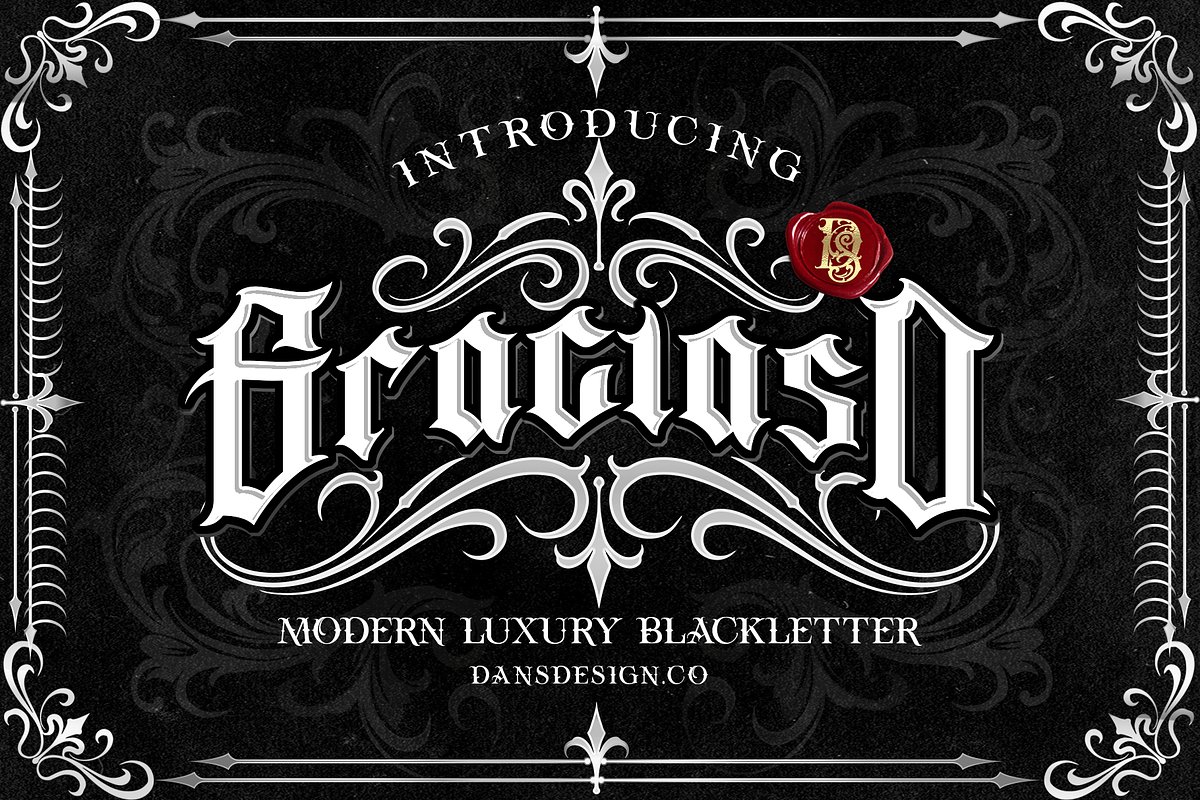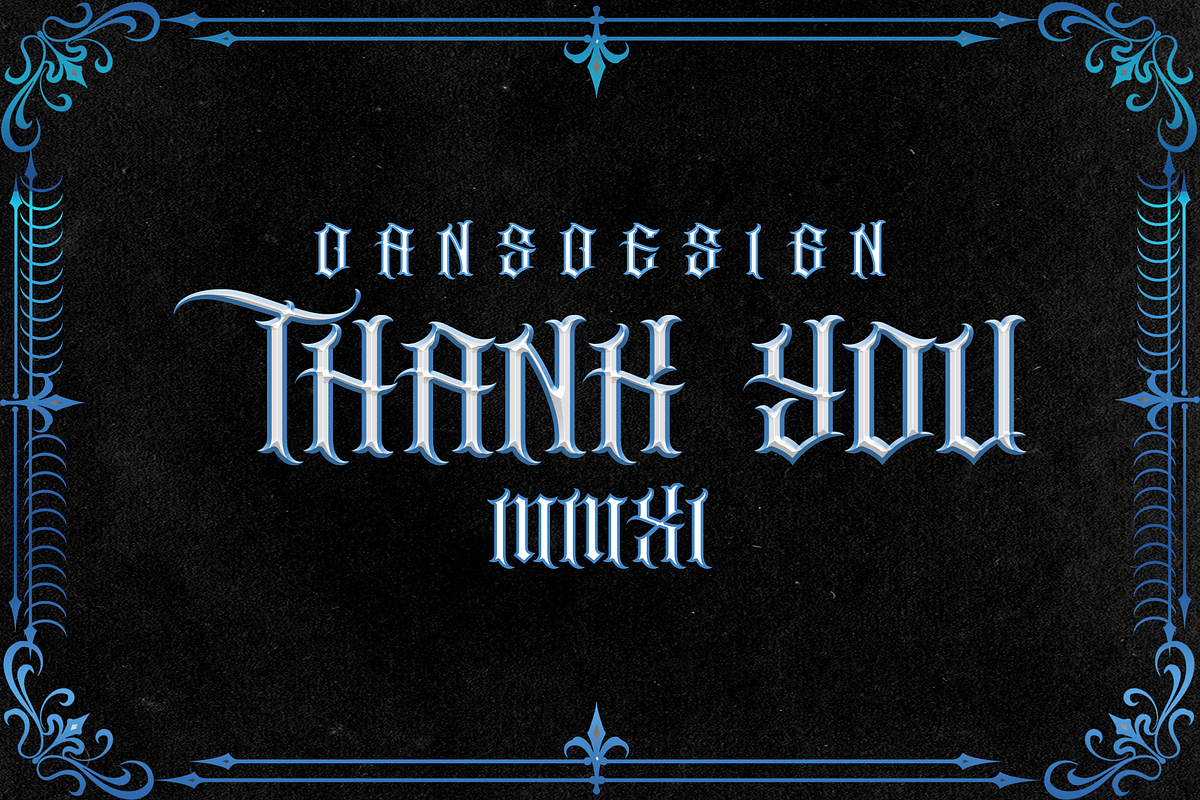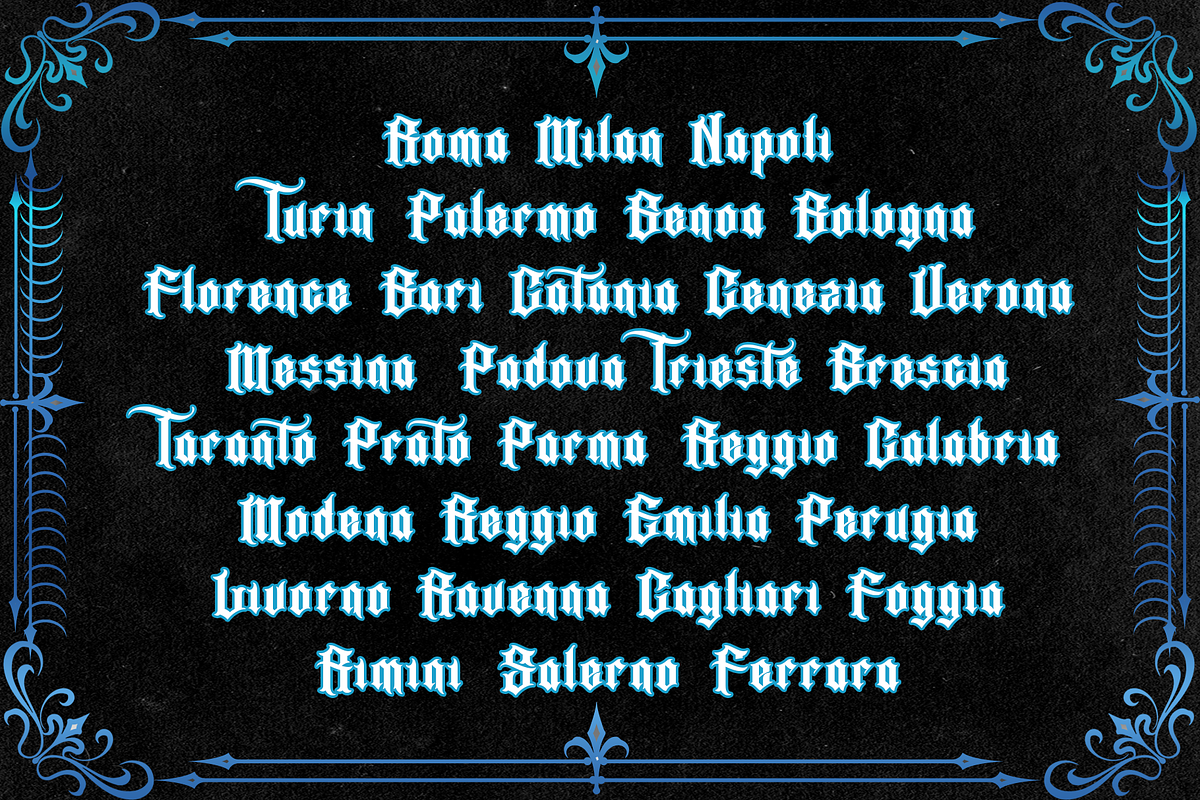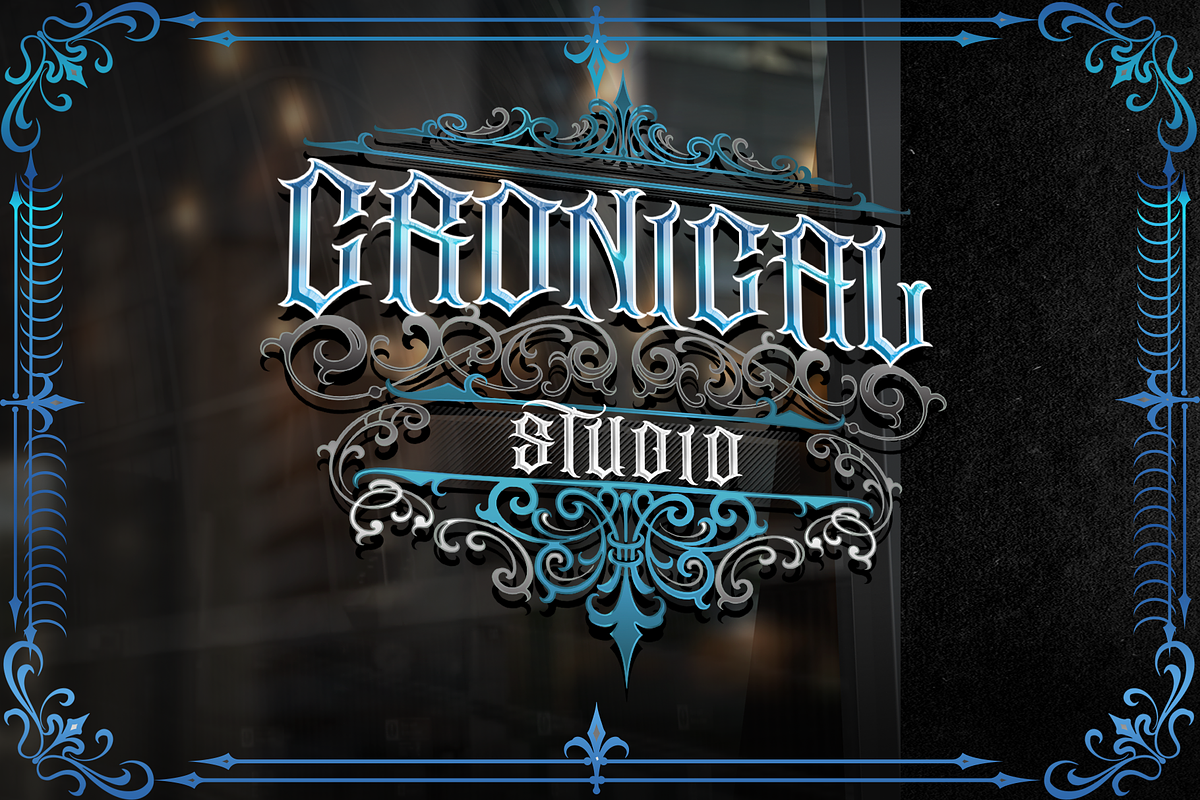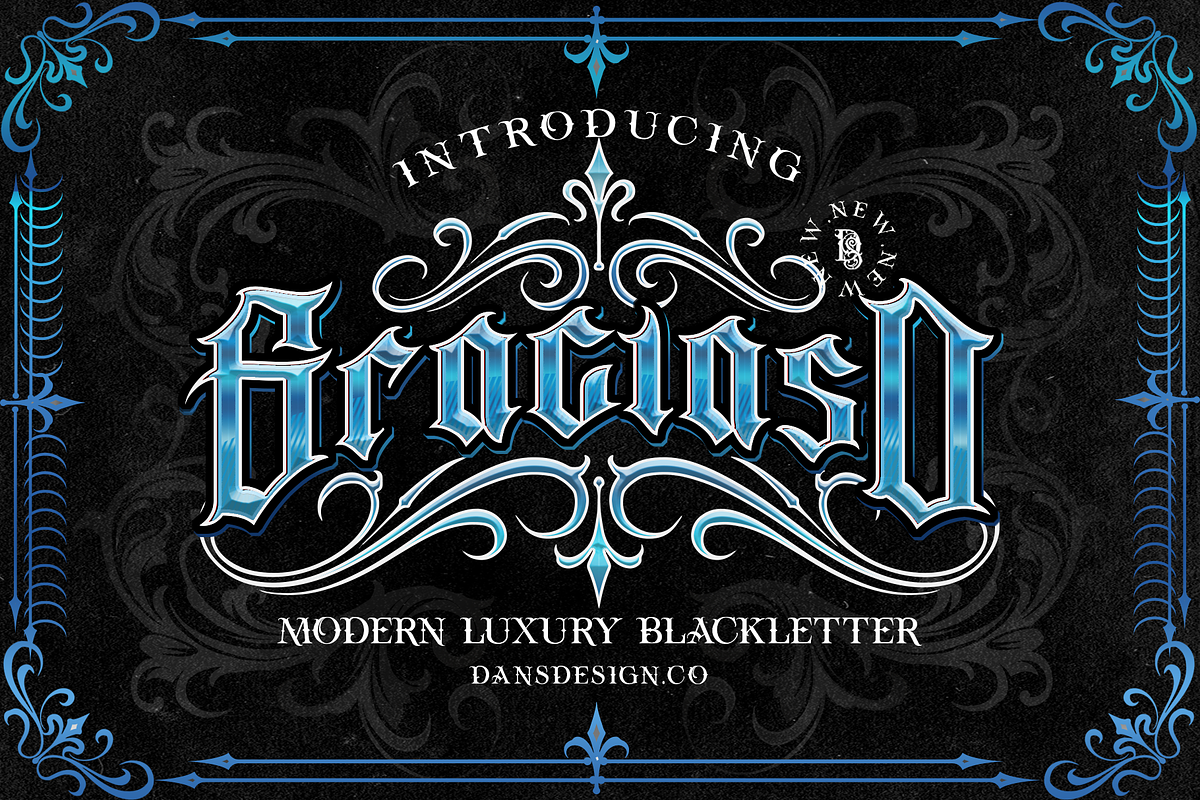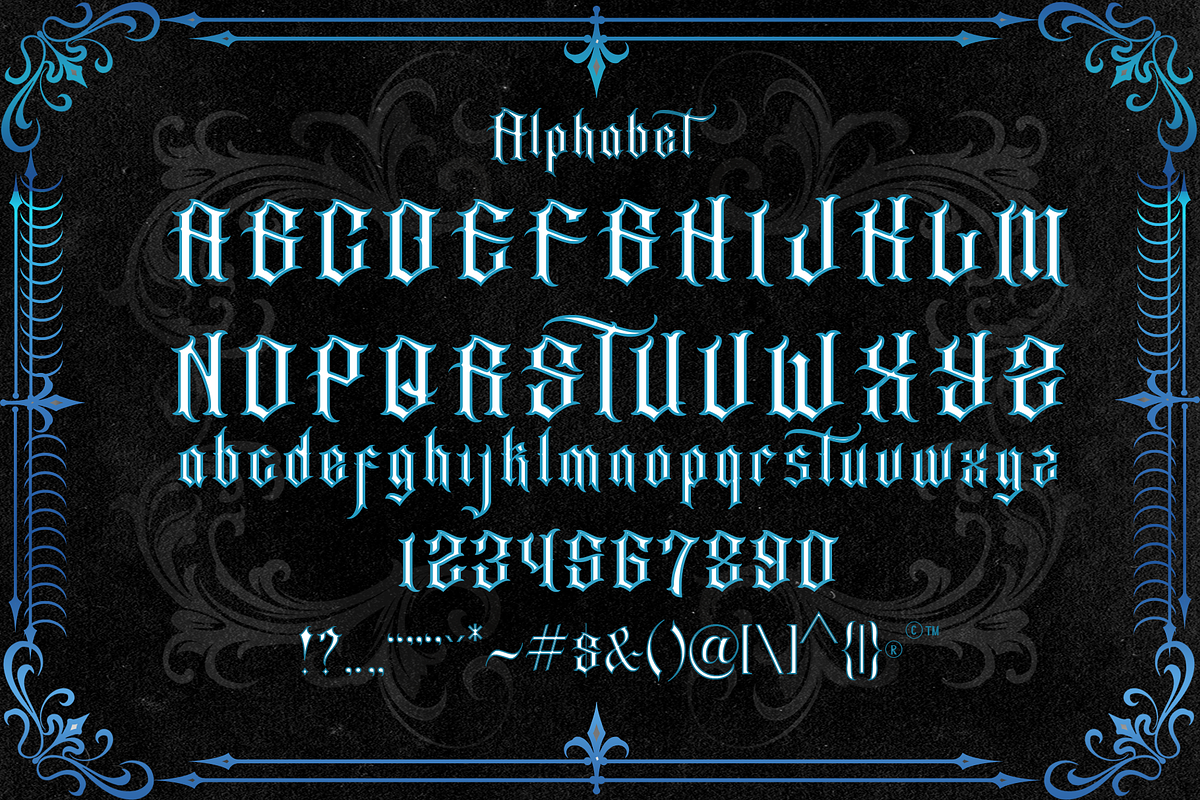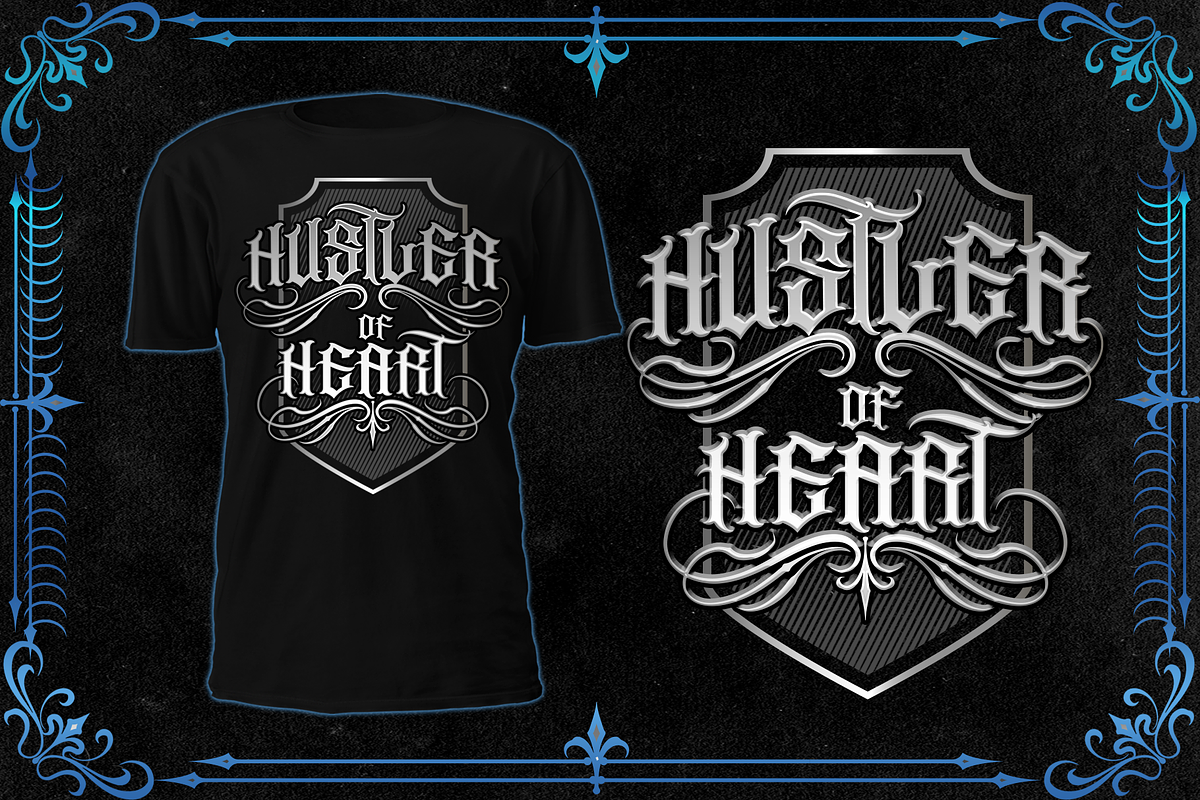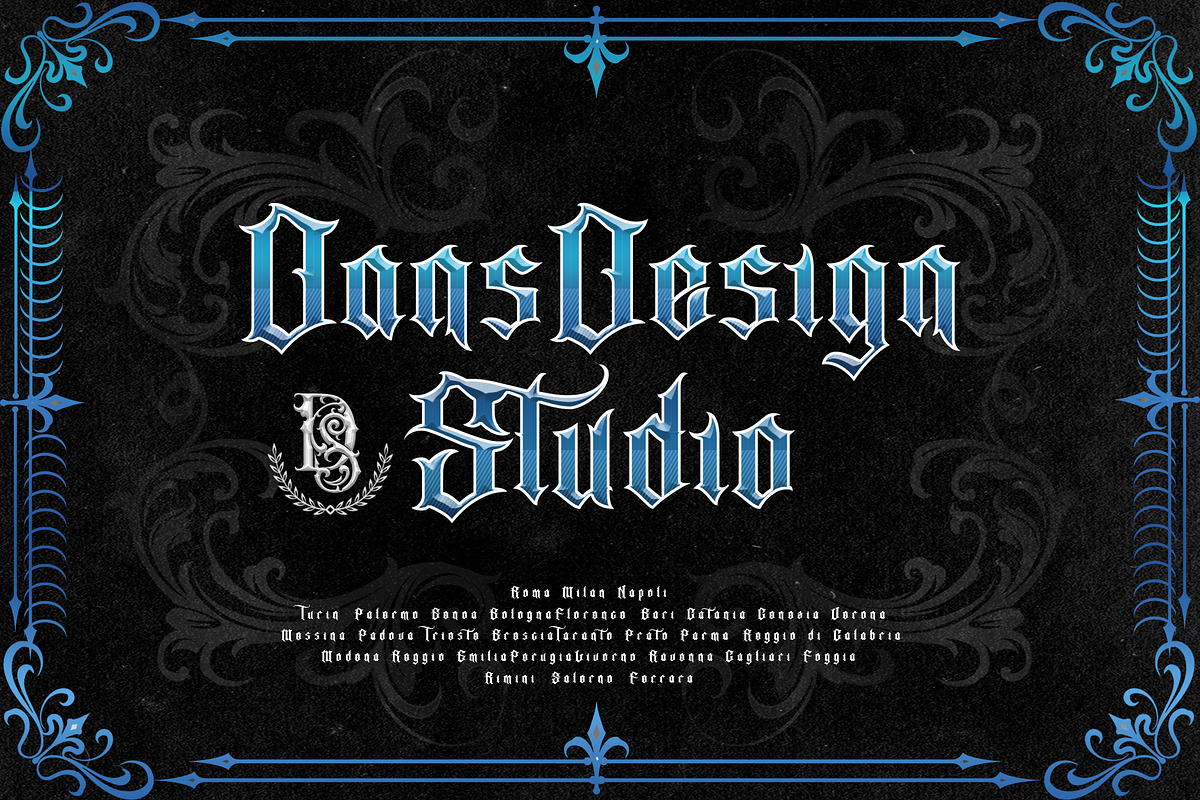
Dansdesign Proudly present our new product GRACIASO This font is made with references to various Blackletters that I combine and design with my style.
- GRACIASO are great and usefull for product logo, poster title, headline, packaging, badge, card logo, clothing brand logo, Vintage design, tattoo design and much more
Character Set A-Z (Uppercase & Lowercase) Numerals & Punctuations Accents (Multilingual characters)